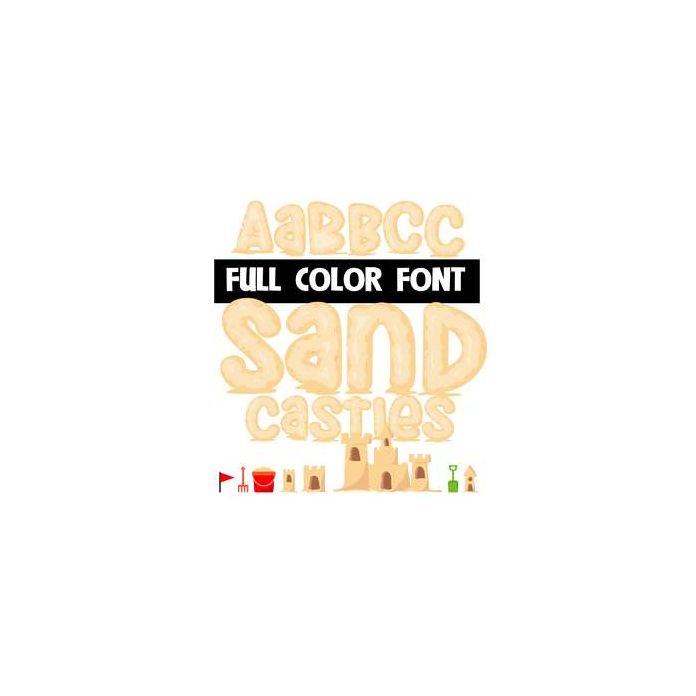
This fun full-color font features letters that look like sand and several bonus characters of sand castle parts and toys. This font works best for titles, displays, posters and more. Please note color fonts will show as black in non compatible programs. This font type is compatible with Silhouette Studio.